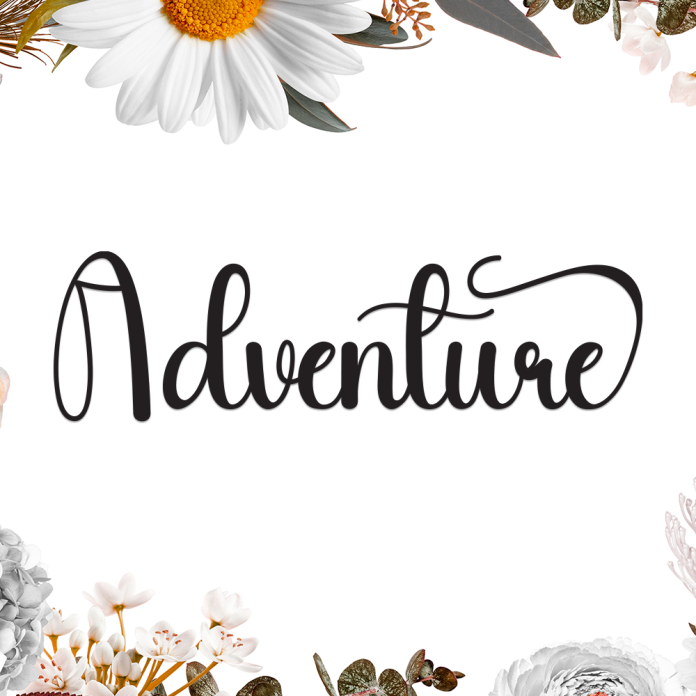
Adventure | Script Font
Adventure is a dynamic handwriting font that captures the spirit of exploration and creativity. With its energetic strokes and handcrafted feel, this font is perfect for designs that crave freedom, wanderlust, and a personal touch.
Ideal for travel quotes, adventure-themed branding, outdoor gear packaging, logos, and social media content, Adventure brings a bold, authentic character to your projects.
Bold and expressive handwritten style
Natural, adventurous letterforms full of motion
Great for travel, lifestyle, outdoor, and handmade products
Take your design on a journey with Adventure, the handwriting font that leads with personality and passion.